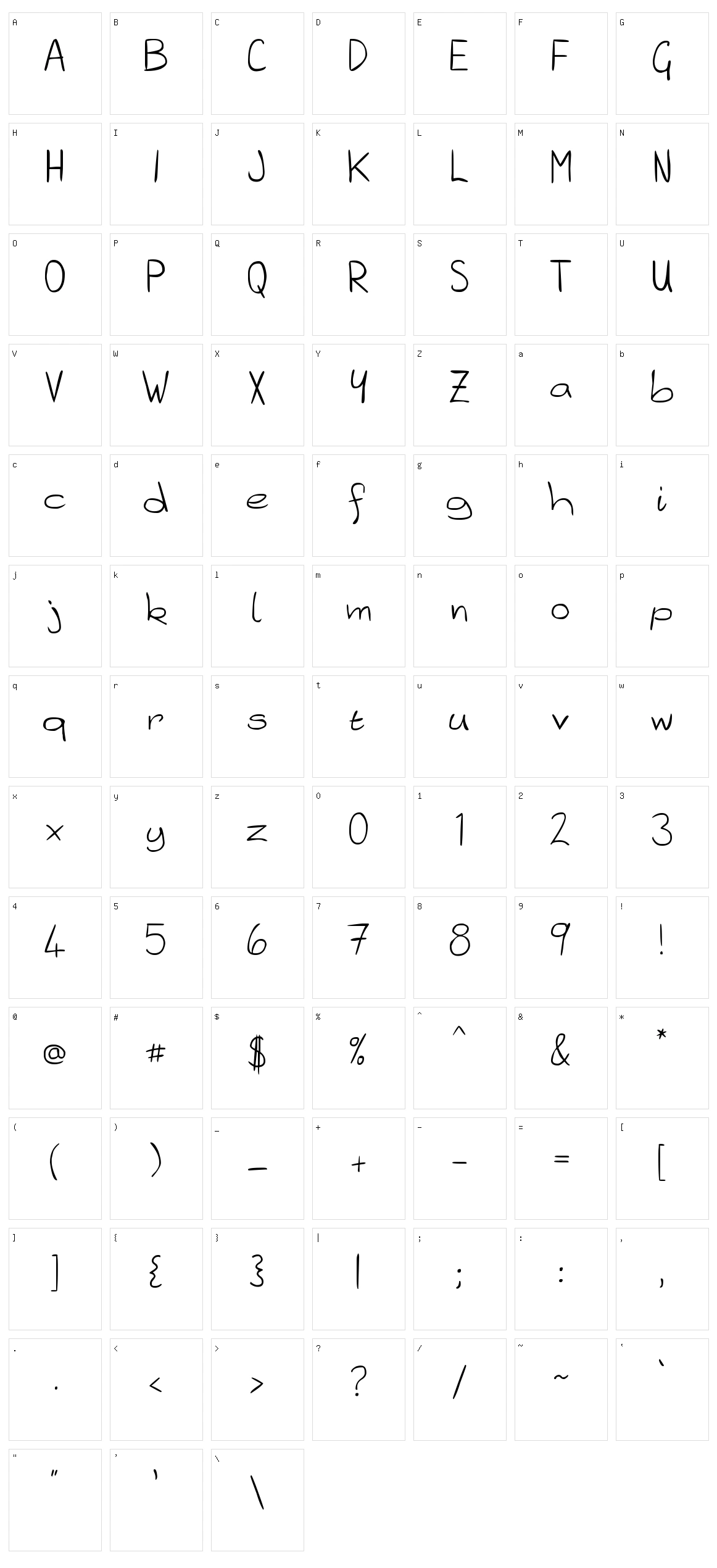
The free font Platly is carefully designed by Bud White, showcasing a thoughtful balance of creativity and usability and falls under the Script font style. When you download the ZIP file, it contains only 11.08 KB of font files, making it lightweight and quick to download. Please review the license details below to understand permitted usage and distribution rights. If license information is not available, we recommend using this font for personal projects only or contacting the author directly for commercial usage permissions.